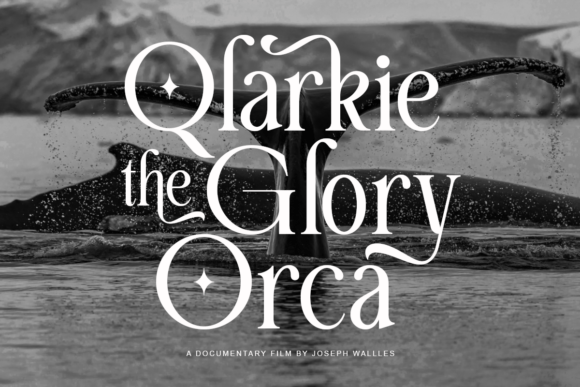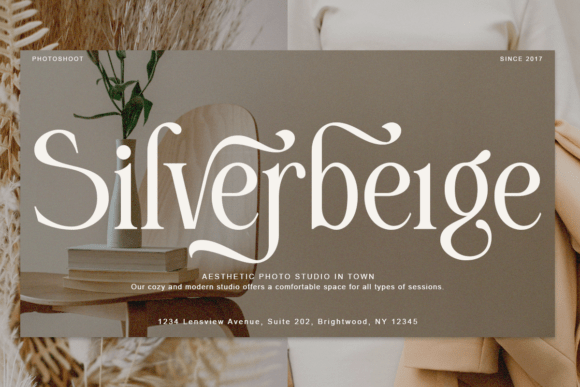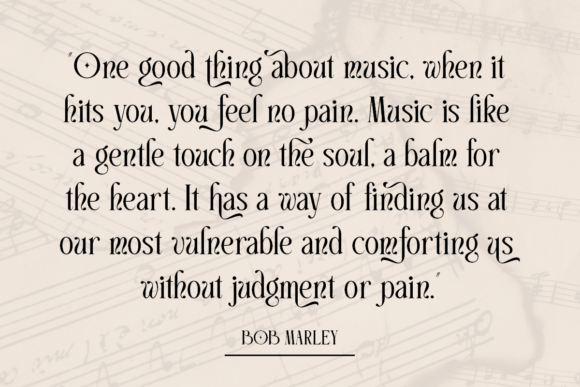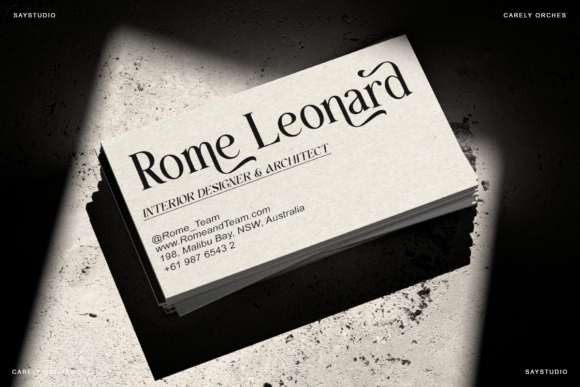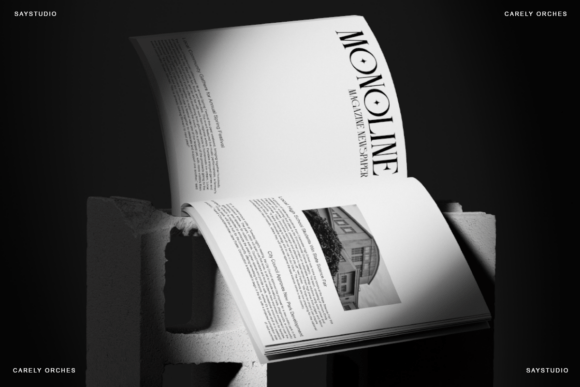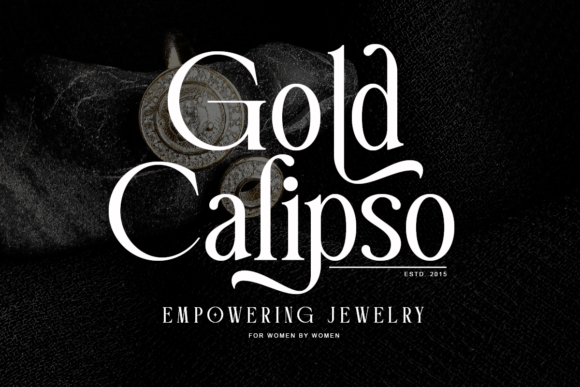
Introducing Carely Orches Font: Elevate Your Designs with Elegance
Are you looking for a font that exudes class and sophistication? Look no further than Carely Orches, a stunning display serif font that’s perfect for fashion work, magazines, and logo designs. With its elegant lines and refined aesthetic, Carely Orches is sure to elevate your designs and leave a lasting impression.
A Classy Display Serif Font
Carely Orches is a beautifully crafted font that’s designed to make a statement. Its classic serif lines and refined details make it perfect for designs that require a touch of elegance and sophistication. Whether you’re working on a fashion brand, a magazine, or a logo design, Carely Orches is the perfect choice.
Perfect for Fashion Work and Magazines
Fashion and magazines require a font that’s stylish, sophisticated, and attention-grabbing. Carely Orches delivers on all fronts, with its elegant lines and refined aesthetic making it perfect for headlines, titles, and other display text. Use it to create stunning fashion editorials, eye-catching magazine covers, or elegant brand logos.
Explore the Glyphs Panel
One of the standout features of Carely Orches is its extensive glyphs panel. With a wide range of characters to choose from, you can experiment with different combinations to create unique and eye-catching designs. From elegant swashes to refined ligatures, the glyphs panel is a treasure trove of creative possibilities.
What Makes Carely Orches Special?
- Classy and sophisticated: Carely Orches is a font that’s designed to impress, with its elegant lines and refined aesthetic making it perfect for high-end designs.
- Versatile: Whether you’re working on a fashion brand, a magazine, or a logo design, Carely Orches is the perfect choice.
- Extensive glyphs panel: With a wide range of characters to choose from, you can experiment with different combinations to create unique and eye-catching designs.
Tips for Using Carely Orches
To get the most out of Carely Orches, here are a few tips:
- Use it as a display font: Carely Orches is designed to make a statement, so use it as a display font for headlines, titles, and other prominent text.
- Experiment with the glyphs panel: With a wide range of characters to choose from, don’t be afraid to experiment and try out different combinations.
- Pair it with a sans-serif font: For body text, pair Carely Orches with a clean sans-serif font to create a striking contrast.
Carely Orches is a stunning display serif font that’s perfect for fashion work, magazines, and logo designs. With its elegant lines, refined aesthetic, and extensive glyphs panel, it’s the perfect choice for designers and crafters looking to elevate their designs. So why wait? Download Carely Orches today and experience the power of elegant typography.
- Classy display serif font
- Perfect for fashion work, magazines, and logo designs
- Extensive glyphs panel with a wide range of characters
- Elegant lines and refined aesthetic
- Perfect for headlines, titles, and other display text
Whether you’re a designer, crafter, or simply someone who appreciates beautiful typography, Carely Orches is a font that’s sure to impress. So why wait? Download Carely Orches today and start creating stunning designs that exude elegance and sophistication.